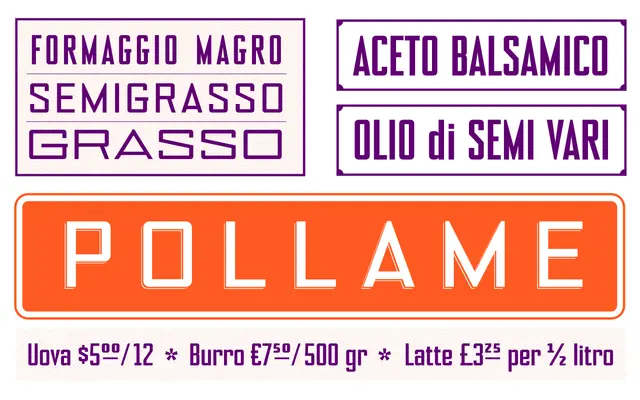
NoExit Rounded
A rounded geometric sans with a variable font spanning seven widths from Condensed to UltraExpanded and four weights from Regular to Black, totalling 29 styles.
The family covers an unusually broad width range — Condensed through to UltraExpanded — each width available in Regular, SemiBold, Bold and Black, with a variable font consolidating the full system. OpenType features include single-storey and double-storey alternates for 'a' and 'g', swash, fractions and case-sensitive forms, giving flexibility for both display and text applications. The rounded terminals soften the geometric construction, making it well-suited to wayfinding, urban branding and signage contexts.
Rounded terminals on a geometric sans structure place this firmly in the rounded geometric category; the variable width and weight axes across condensed to ultra-expanded widths are characteristic of a contemporary geometric sans system.